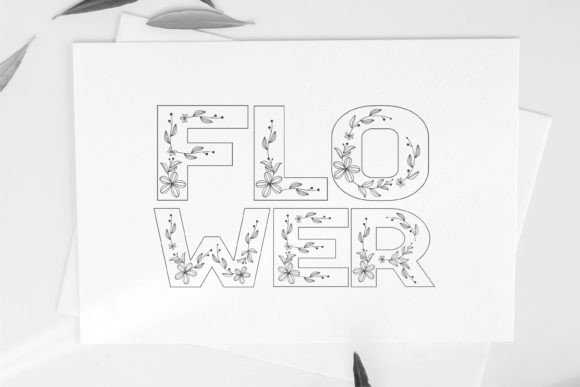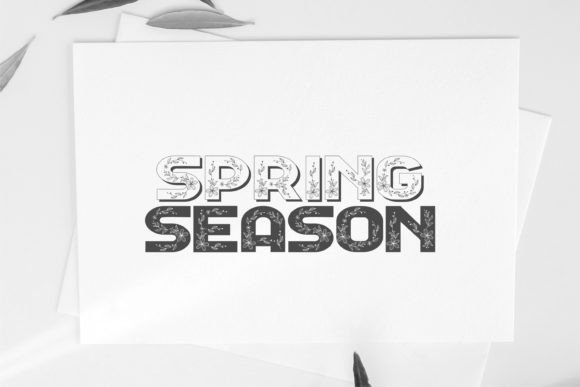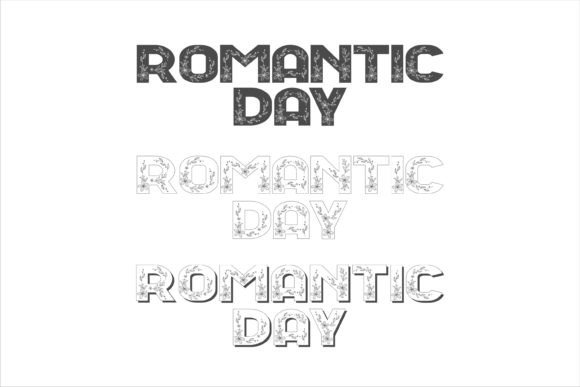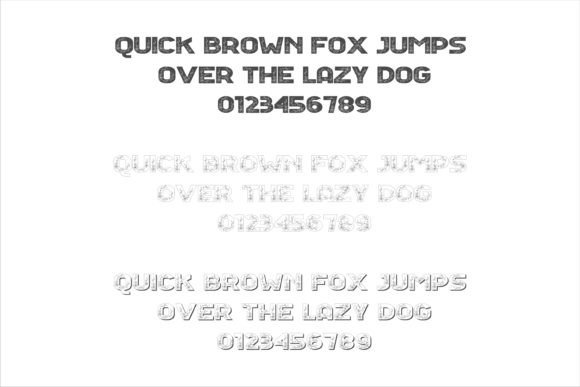
Introduction to Floral Season Family Font
As a designer, there’s nothing quite like the thrill of bringing a creative project to life. You’re browsing through a font library, searching for the perfect match for your latest design, when suddenly you stumble upon it – a font that’s so beautiful, it makes your heart skip a beat. For many designers, that moment is a little slice of heaven, and for those who love the Floral Season Family Font, it’s a moment they’ve experienced time and time again.
This stunning font is a game-changer for any design project that needs a touch of elegance and sophistication. With its intricate floral ornaments and plants, the Floral Season Family Font adds a customized touch to wedding invitations, thank you cards, quotes, greeting cards, logos, business cards, and more. Whether you’re working on a high-end design or a personal project, this font is sure to impress.
Key Features of Floral Season Family Font
- High-quality, intricate floral designs suitable for various creative projects, including wedding invitations, greeting cards, and scrapbooking.
- Includes multiple weights and styles, including bold, italic, and regular, providing designers with a range of options for their projects.
- Designed with a high level of detail and precision, ensuring that the font looks crisp and clear at resolutions up to 300 DPI.
- Perfect for designers seeking a unique and elegant font for their creative project, whether it’s a wedding design, a logo, or a branding element.
Honest Review: Floral Season Family Font
I recently had the chance to work with the Floral Season Family Font, and I must say it’s been a game-changer for my creative projects. This versatile font is perfect for anyone looking to add a touch of elegance and sophistication to their designs.
One of the things that works well with the Floral Season Family Font is its compatibility with transparent backgrounds. This makes it super easy to use in a variety of design contexts, from wedding invitations to digital graphics. I’ve also been impressed with the high quality of the font, which is crisp and clear even at larger sizes.
- ✨ Unique and elegant design aesthetic
- ✨ Compatible with transparent backgrounds
- ✨ High quality and crisp typography
Overall, I’m really impressed with the Floral Season Family Font. It’s a fantastic design resource that’s perfect for anyone looking to add a touch of elegance to their creative projects. With its high quality typography and versatile design aesthetic, it’s definitely worth checking out.
The Floral Season Family Font is ideal for various design projects, including wedding invitations, greeting cards, and packaging design. Its high-quality design and transparent background make it perfect for creative projects.